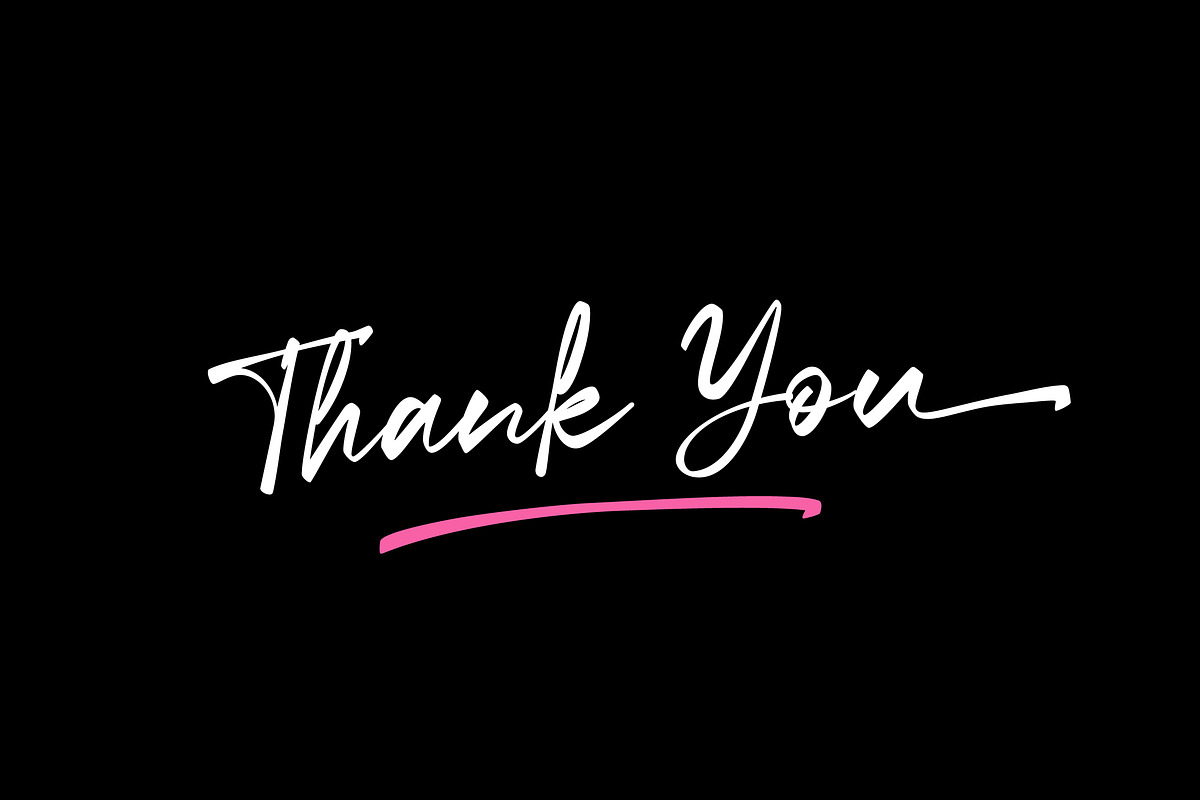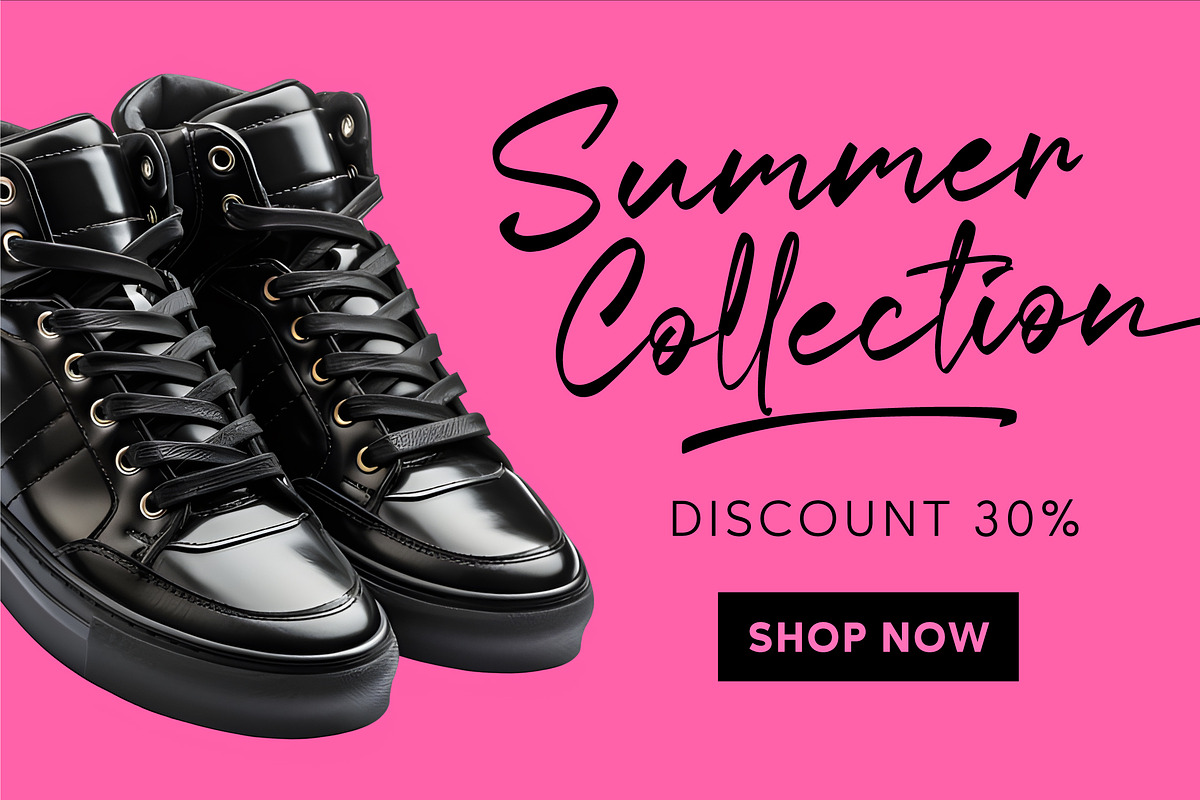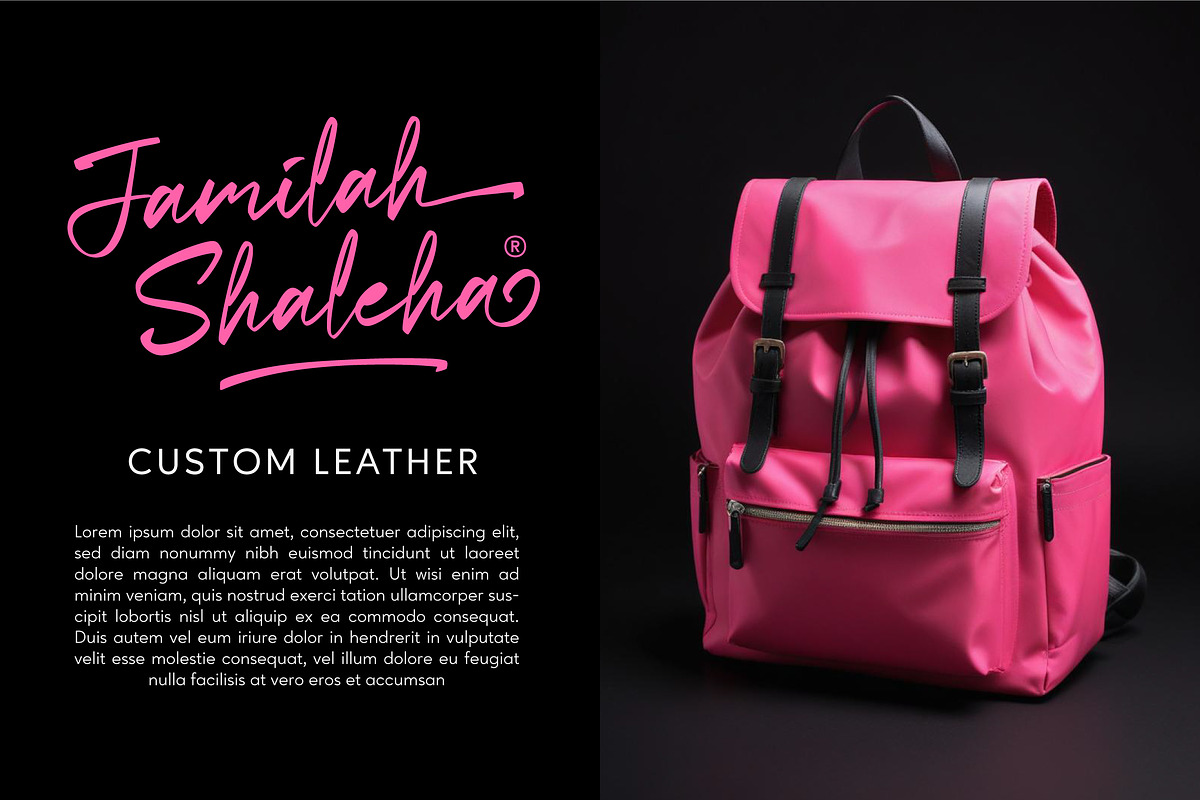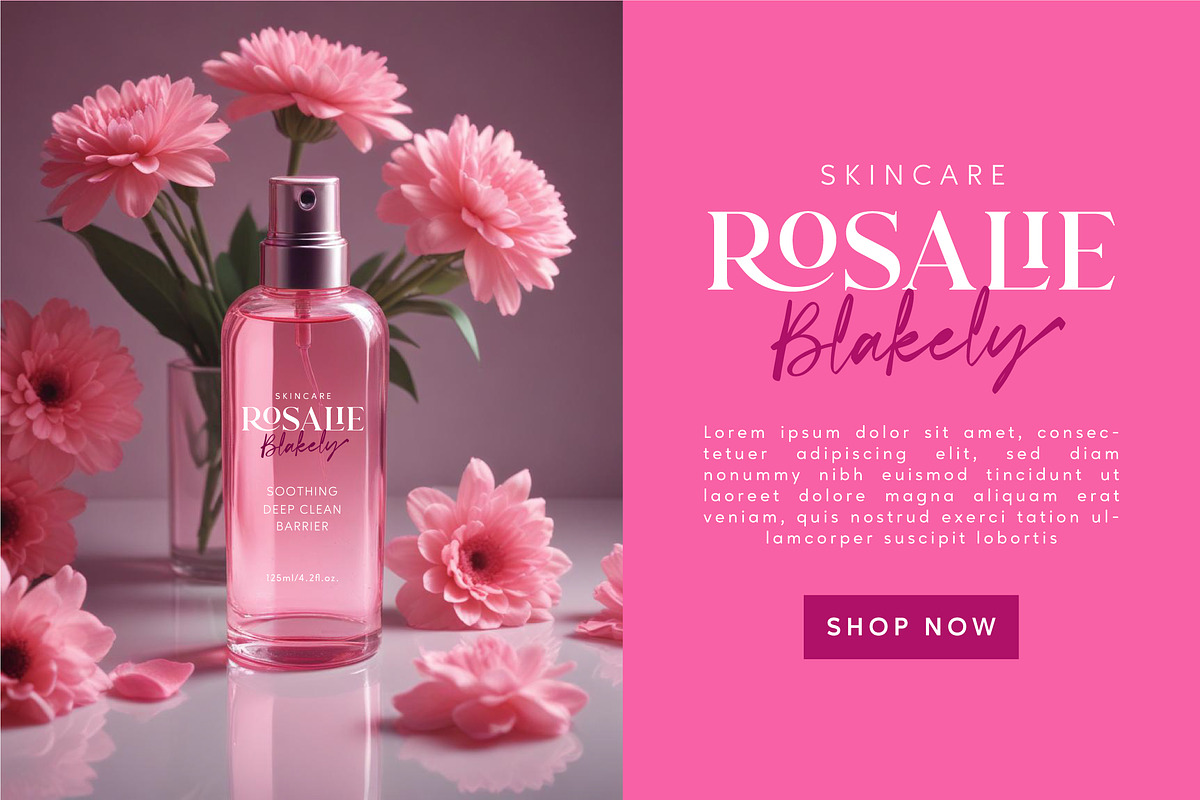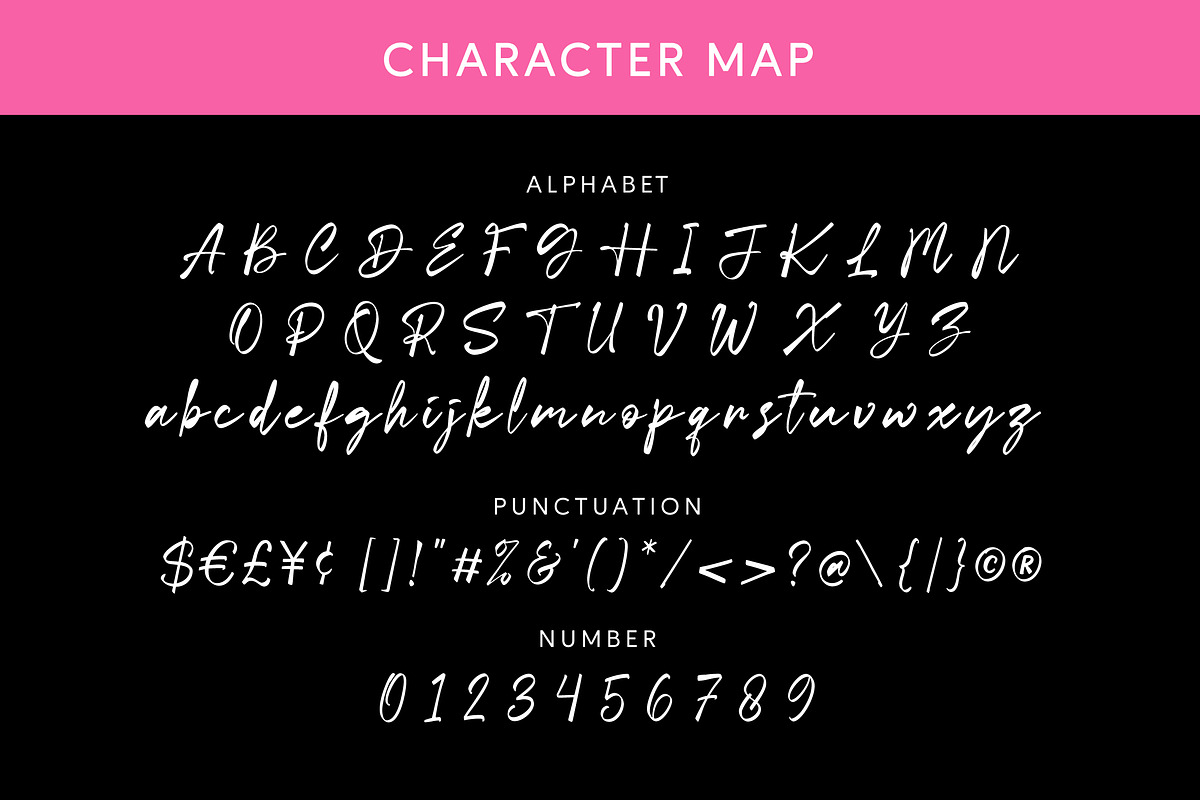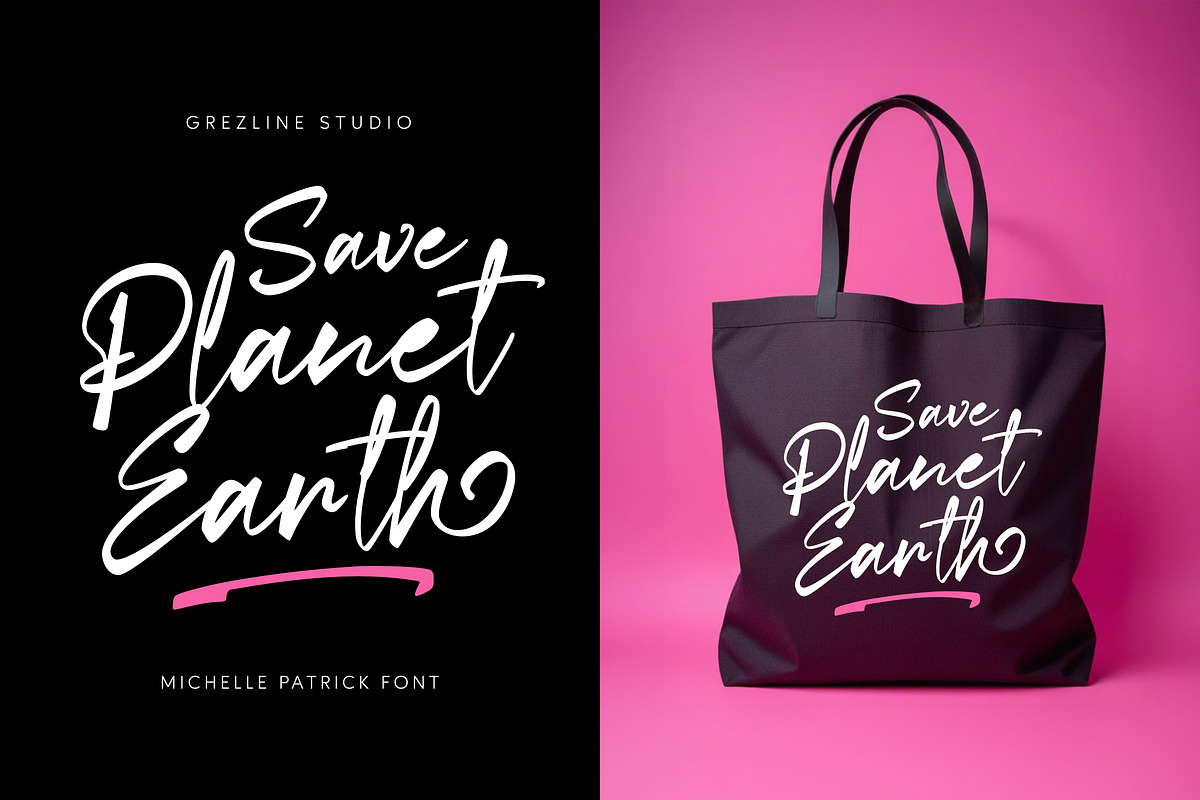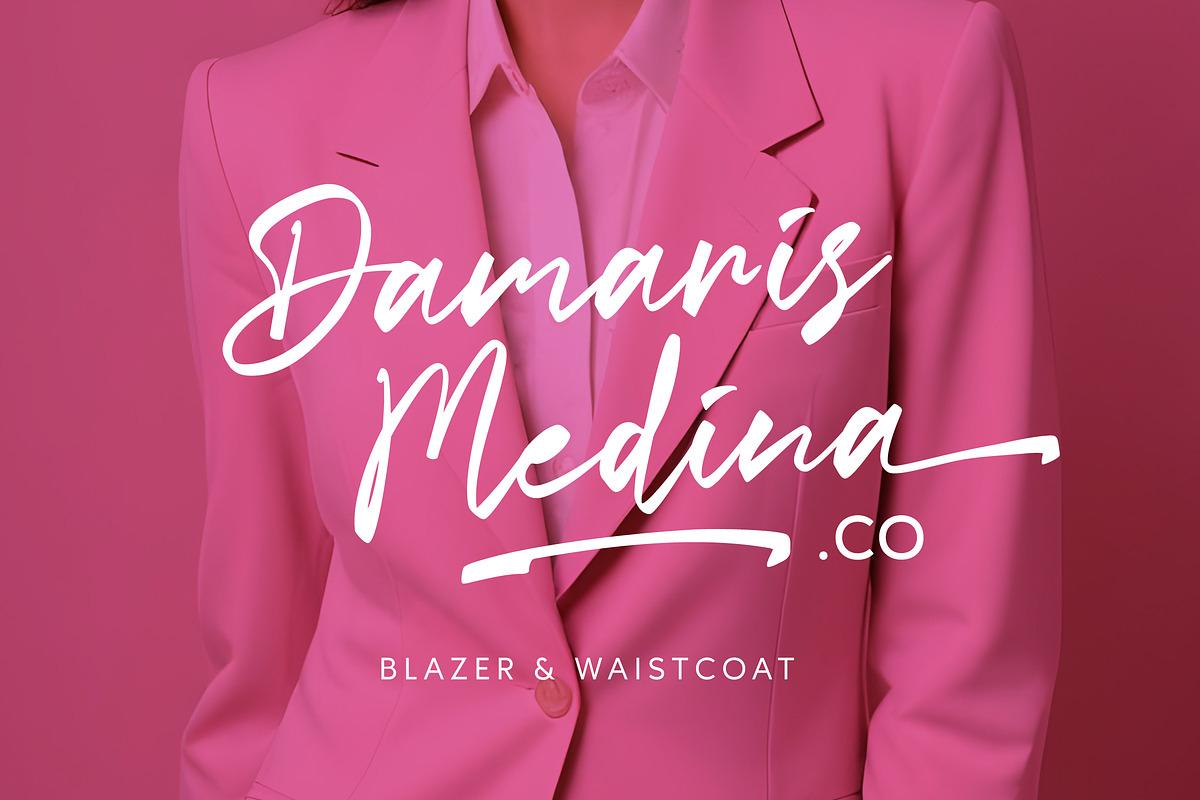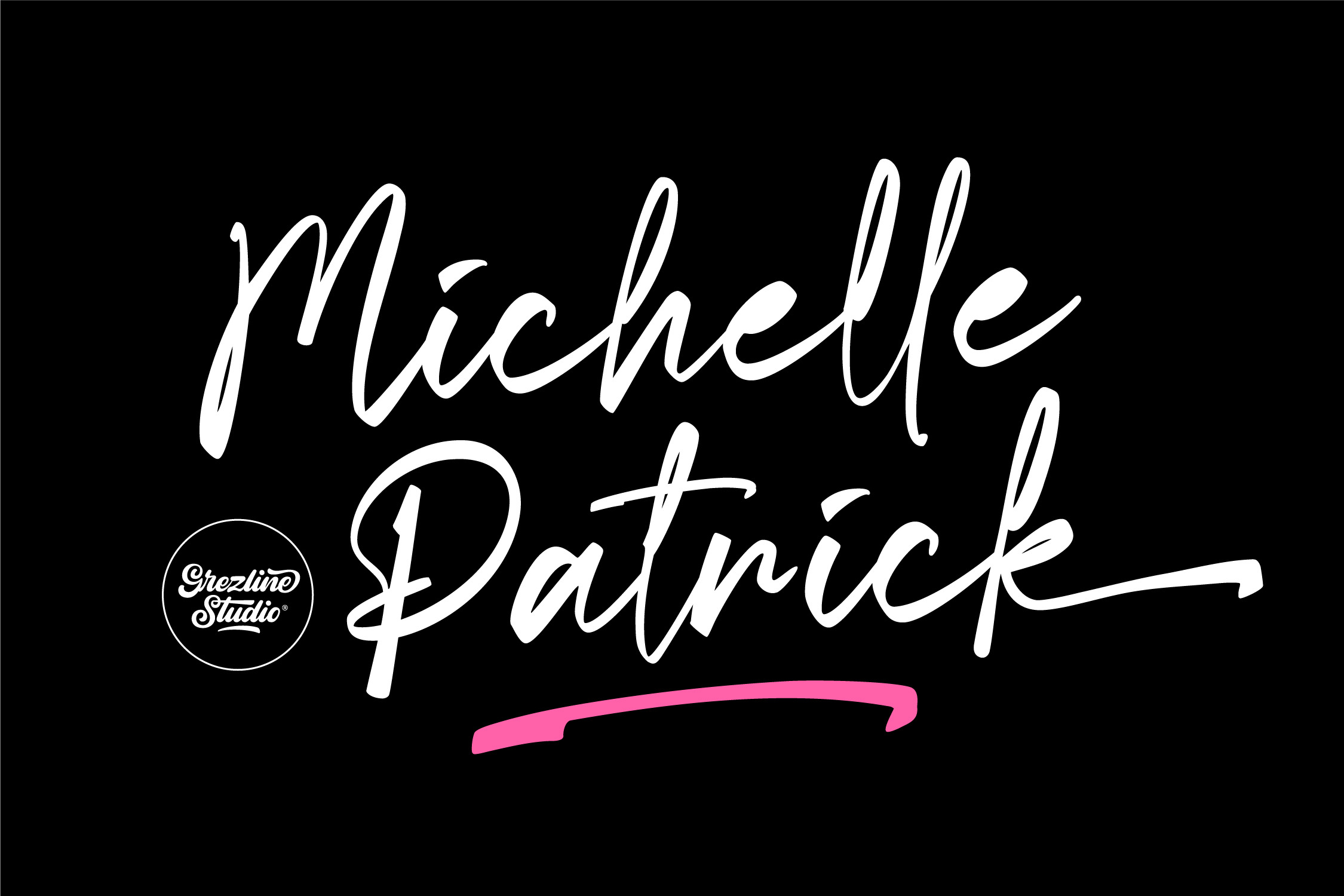
Michelle Patrick - Handwritten Font
Introducing my newest font called Michelle Patrick, a handwritten script font. Imagine your words flowing like a brushstroke on a canvas, each letter dancing with elegance and personality. Whether you're crafting a heartfelt invitation, designing a brand that speaks to the soul, or simply adding a touch of artistry to your everyday projects, Michelle Patrick font is your fashionably creative companion.
- Alternate and Ligature
- Multilingual Language